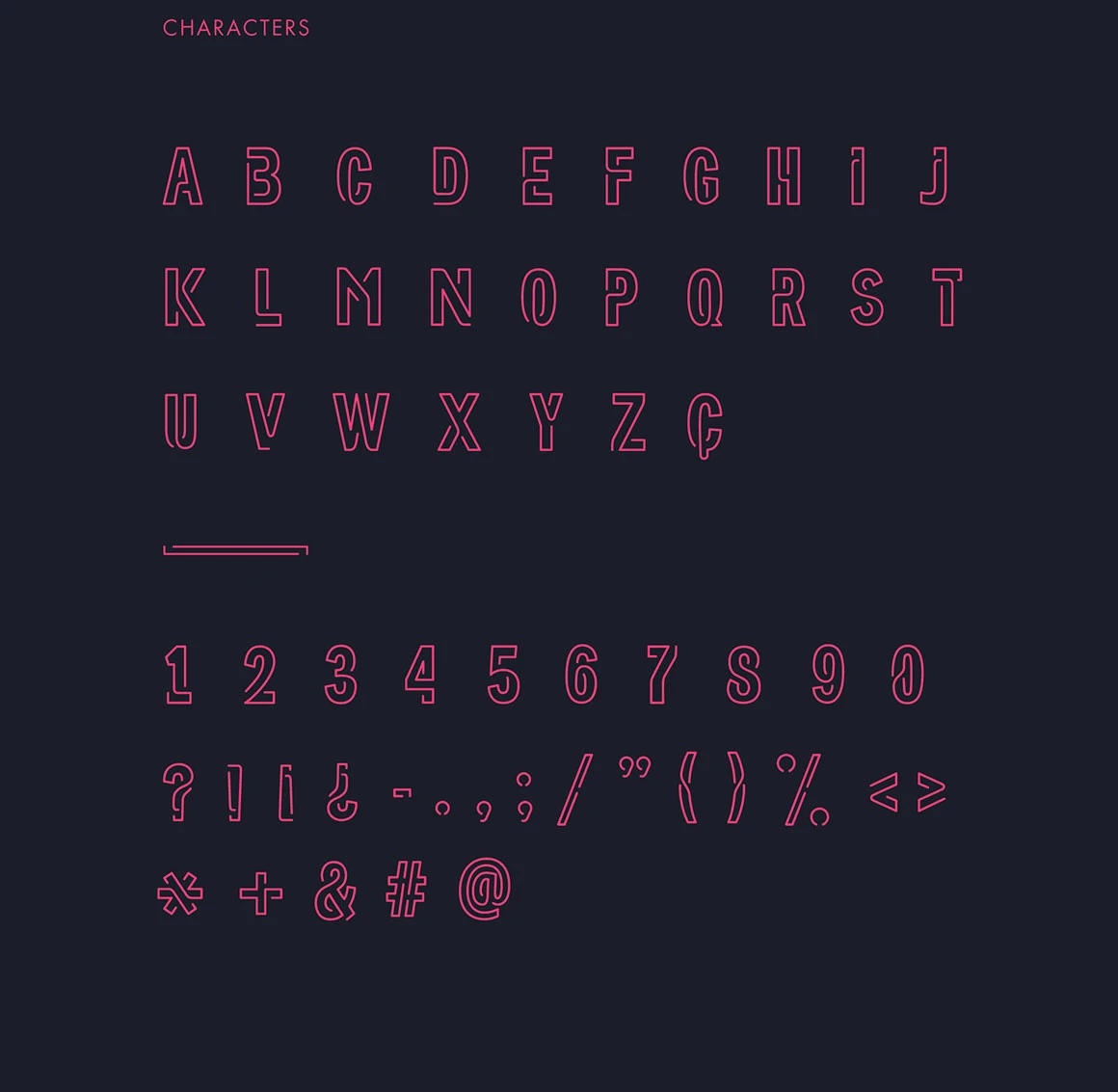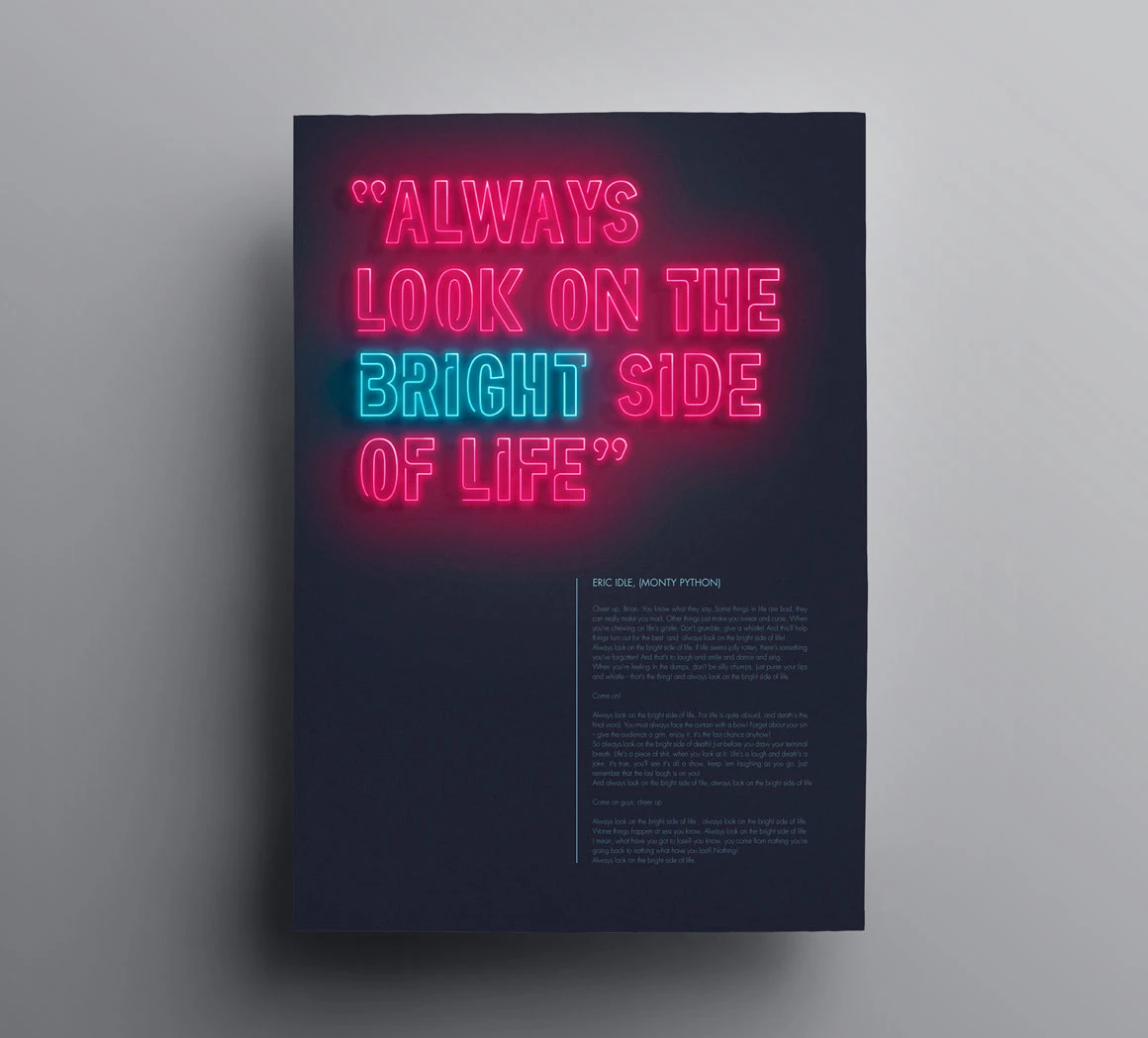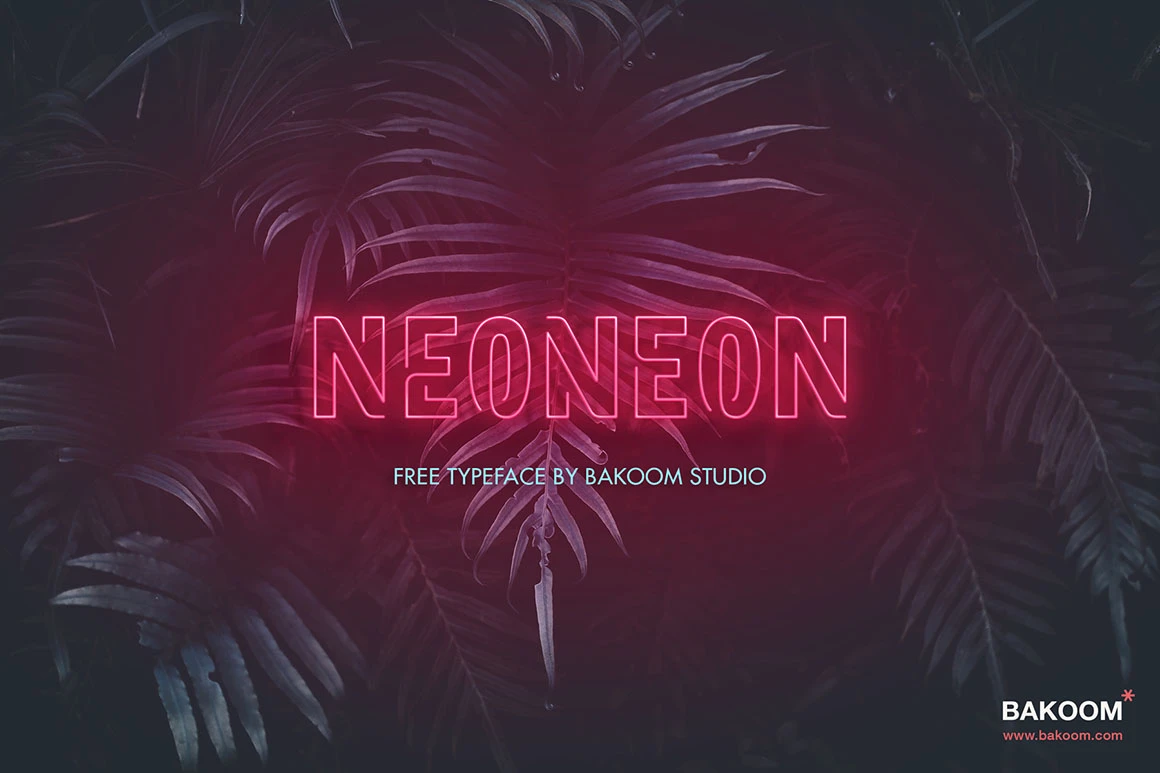
Neoneon brings the electric glow of retro neon signs straight to your designs. This free display font captures that bold, luminous vibe with clean curves and a modern edge. Whether you’re crafting a poster, logo, or social media graphic, Neoneon adds instant personality and a touch of vintage flair. And the best part? It’s completely free to download.
Neoneon is a free decorative font designed for creatives who want to make a statement. Inspired by classic neon signage, it works perfectly for headlines, branding, and any project that needs a pop of retro energy. Compatible with most design software, this font is ready to use right after download.
- ✅ Bold Neon Style → Grabs attention and gives your text a luminous, retro look.
- Graphic designers looking for a standout display font
- Branding projects needing a retro or neon touch
- Poster and flyer designs that demand attention
- Social media graphics and digital art
- Hobbyists and professionals alike